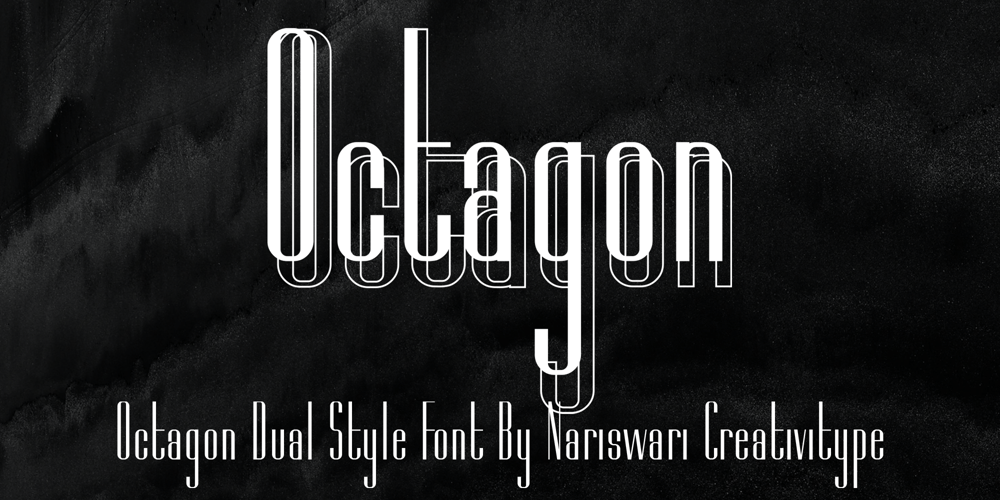
Octagon
Octagon font
Octagon Font Family was designed by Taufik Dwi Purnomo and published by Nariswari Creativitype. Octagon contains 2 styles and family package options. Octagon is a basic sans serif font. This font showing a simplicity in design and readable. One of the feature is the optical kerning precisision, that supporting ellegantly in the writting result Hope this font will be fit on your next design project.If you have any question please feel free to contact.